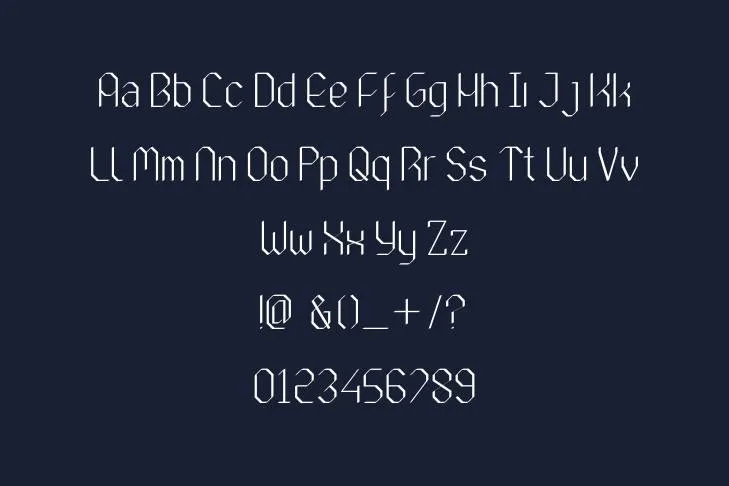
A type of foundry by the name of Create Type Studio developed the contemporary Sans-serif typeface known as Gomawo. The word “Gomawo” is Korean which means “thank you.” The font features a simple, basic look and is well-liked for usage in graphic design projects like branding and logo creation.
Gomawo font is simple and easy to read even in small print or on displays with low resolution because of its minimalist design. Gomawo is an effective, adaptable, and contemporary font that can be utilized in a variety of design scenarios.
Important Usage of Gomawo Font
This remarkable font can be utilized for various purposes and displays awe-inspiring results, thus, grabbing the attention of viewers quickly. Several applications, including print materials, website design, and social media visuals, are all ideal for the font’s adaptable design.
Because of its contemporary, businesslike appearance, which can provide a brand with a more polished and upscale appearance, it is frequently employed in branding and logo design. Additionally, when fitted with video game interfaces, its contemporary appearance reproduces engaging results.
Its eye-catchy effect pleases the audience, and its comprehensive set of characters allows the users to adapt it for multiple tasks including text etching on different kinds of apparel, decorative items, or pots.
Fonts Pairing With Gomawo Font
Both serif and sans serif fonts can be combined along with the Gomawo typeface. One of the more appreciated pairings is Gomawo with Roboto, Montserrat, Lato, or Open Sans. The fonts must complement one another and not conflict when employing two distinct fonts simultaneously.
Name | Gomawo Font |
Style | Fancy |
Designer | Type Studio |
Toy Gomawo Font is what kind of font?
A type of foundry by the name of Create Type Studio developed the contemporary Sans-serif font known as the Gomawo typeface. It has many unique features which make it extraordinary among other fonts.
Is there a font that resembles Gomawo Font?
The gorillaz font is the most suitable replacement for this pleasant font.